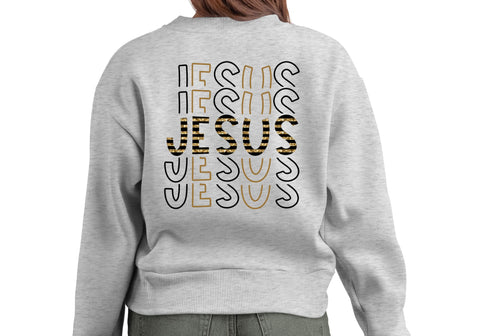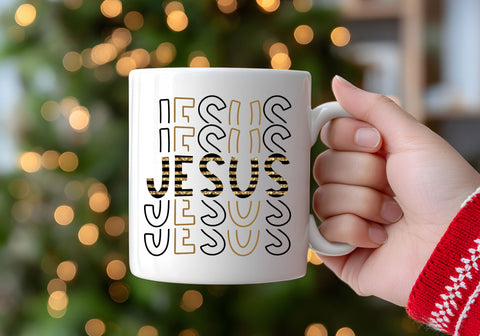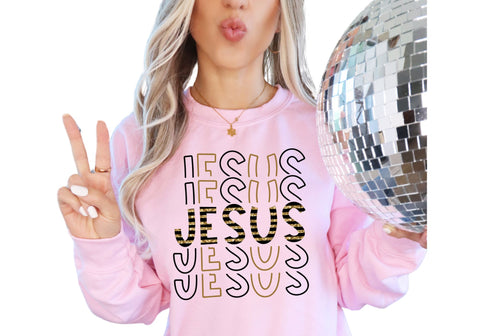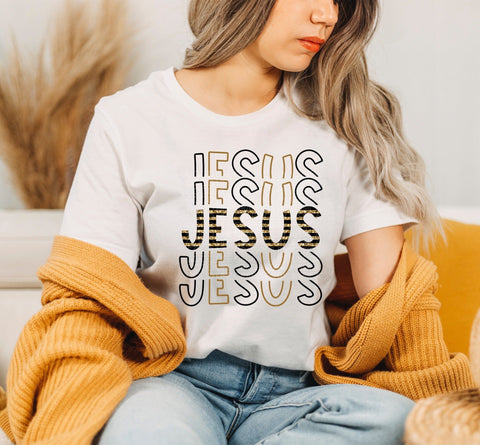
Jesus Jesus Jesus | Gold Black Striped Religious PNG | Christian Faith Typography Design
This powerful Christian typography design emphasizes the name of Jesus through repetitive text in sophisticated gold and black striped patterns. The elegant color combination creates visual impact while maintaining reverence for the sacred message, appealing to believers who want stylish faith expression.
Designed for Christians who appreciate contemporary religious design and want to display their faith with modern aesthetics, this piece speaks to people who seek fashionable ways to honor Jesus while maintaining spiritual significance and visual appeal.
The design features repeated "JESUS" text in alternating rows with sophisticated gold and black striped patterns and clean outline typography. The elegant color palette creates visual hierarchy while the repetition emphasizes the importance and centrality of Jesus in Christian faith.